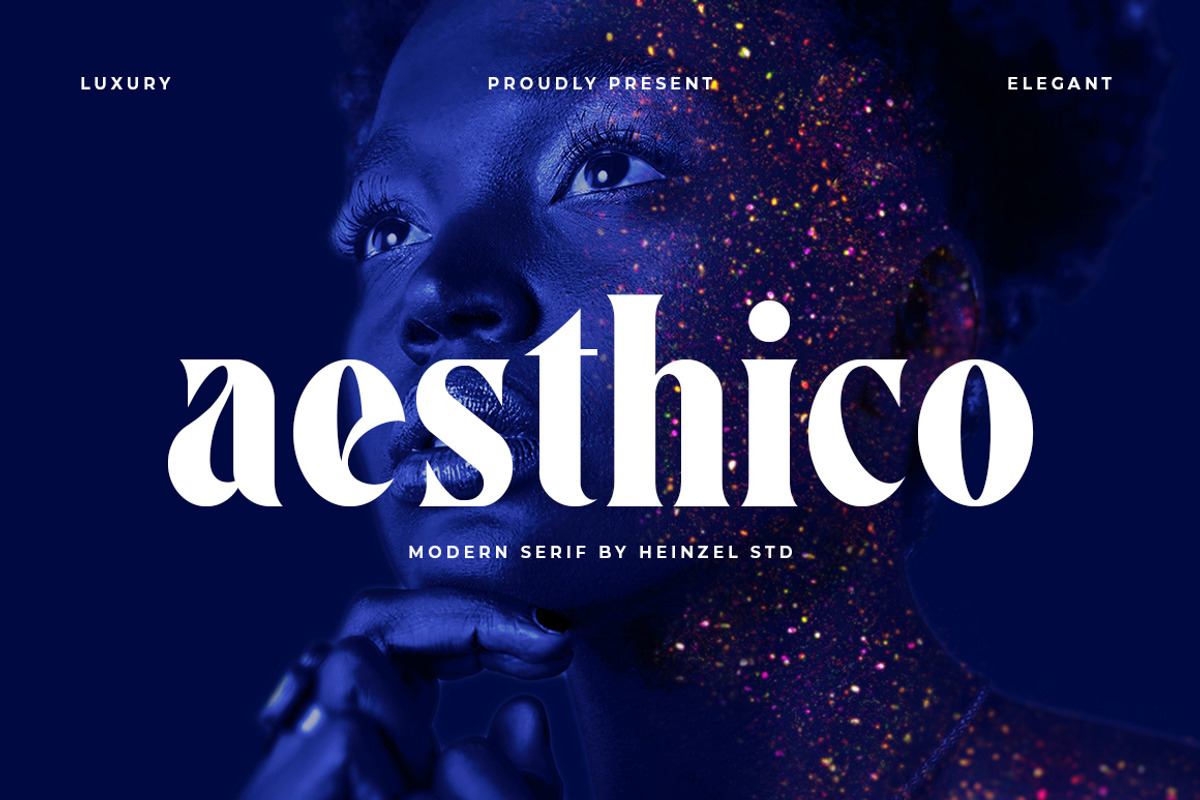
Aesthico Modern Serif Font Free Download is a sleek, contemporary serif typeface that combines modern elegance with traditional influences. Featuring clean lines, balanced proportions, and sophisticated serifs, this font is perfect for high-end branding, editorial layouts, websites, logos, and more.
Its refined design ensures readability and style, making it an excellent choice for both print and digital projects. Whether you’re working on a luxury brand, a fashion magazine, or a modern website, Aesthico Modern Serif Font Free Download provides a professional and polished touch to your typography.